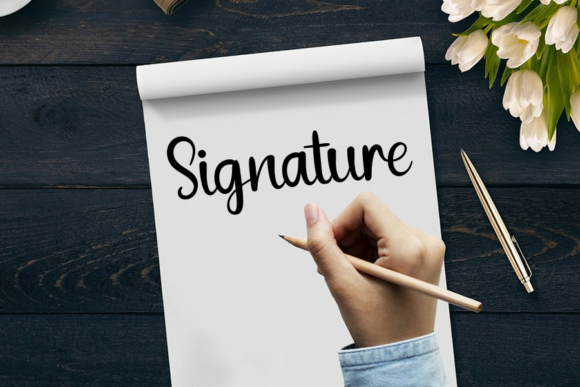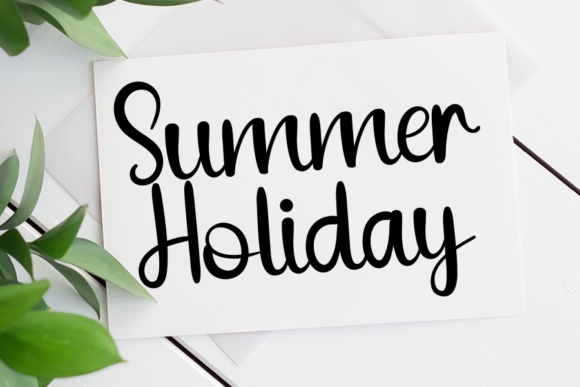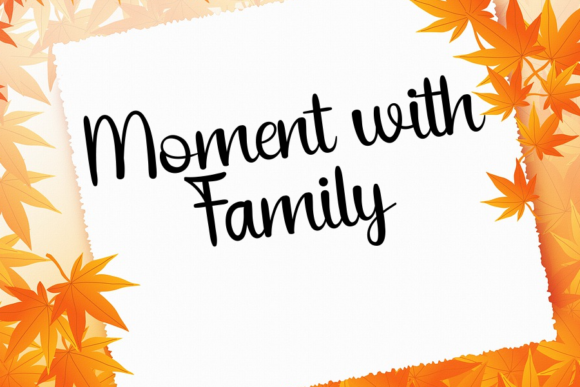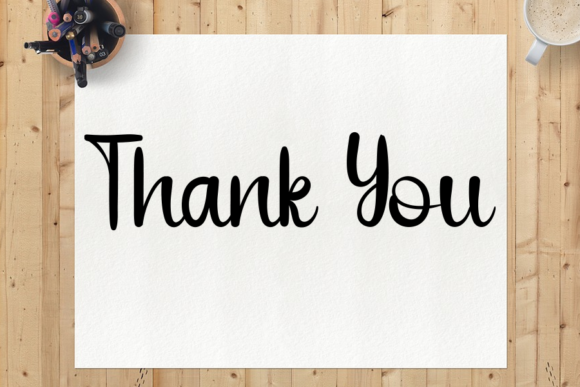
The California Dream: Elevate Your Designs with This Stunning Script Font
I’ll never forget the design project that led me to discover the California font. I was working on a wedding invitation suite for a client who wanted something elegant, modern, and utterly Instagram-worthy. As I scrolled through font after font, nothing seemed quite right – until I stumbled upon California. ✨ Its refined script letters and effortless flow won me over, and I knew I had found the perfect fit. In this article, I’ll share my love for this beautiful font, its features, and how to make the most of it in your designs.
So, what makes California font so special? Here are the things I love:
- ✅ Classy and elegant look that’s perfect for high-end designs
- ✨ Modern feel that’s sure to impress
- 🔥 Highly versatile – use it for logos, branding, invitations, stationery, wedding designs, social media posts, and more!
- 💻 Works beautifully in both digital and print formats
Of course, no font is perfect, and California has a few minor quirks:
- ⚠️ Some users may find the font a tad too ornate for very casual designs
- 🤔 May require a bit of tweaking to get the kerning just right
Exploring Alternatives: Similar Fonts to California
If you love California font but want to explore other options, here are a few similar fonts you might enjoy:
- Lust Script: A beautiful, elegant script font with a similar feel to California. Use it for high-end branding, invitations, and wedding designs.
- Moraba: A modern script font with a sophisticated edge. Perfect for logos, social media posts, and fashion brands.
- Alex Brush: A whimsical script font with a playful touch. Great for creative projects, such as illustrations, comics, or children’s books.
- Pacifico: A stunning script font with a relaxed, beachy vibe. Use it for designs that need a laid-back, summery feel.
The Story Behind California Font
California font was designed with the intention of capturing the essence of the Golden State: elegant, refined, and effortlessly cool. Its creator, a talented type designer, drew inspiration from the state’s iconic coastline, sun-kissed beaches, and vibrant cities. The result is a font that’s both modern and timeless – perfect for designs that need a touch of California glamour.
Q: Is California font suitable for body text?
A: While California font is stunning, it’s best suited for headlines, titles, and short paragraphs. For body text, you may want to choose a more legible font.